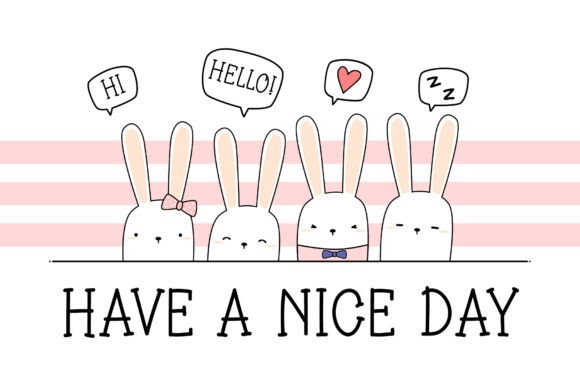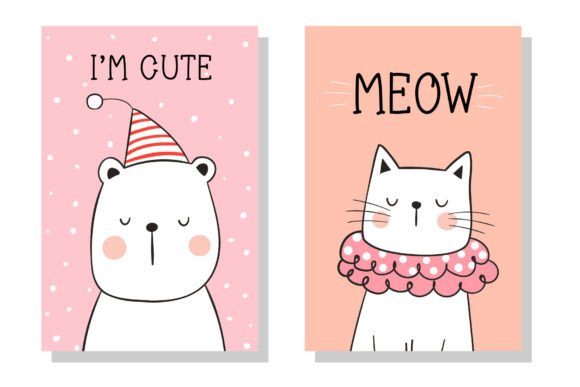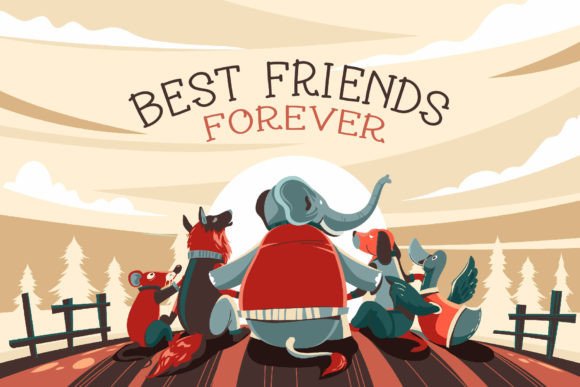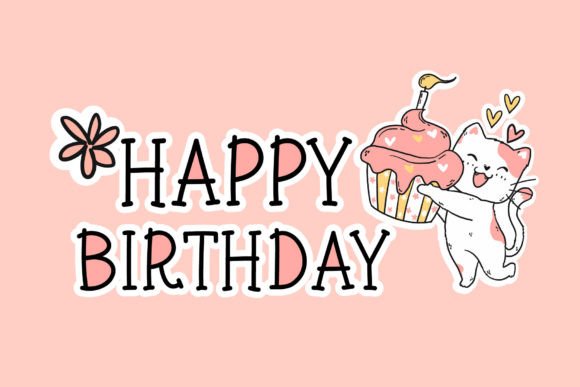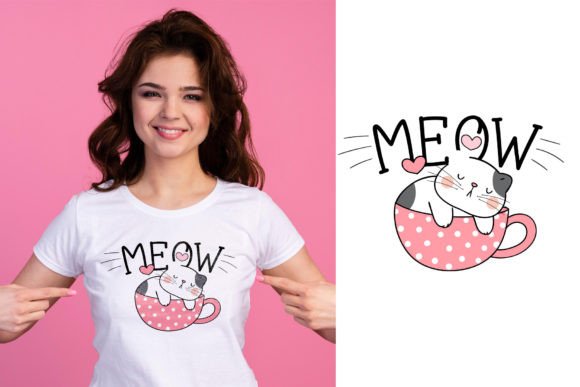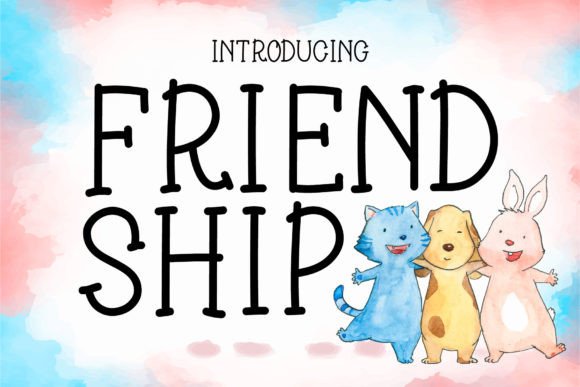
Introducing Friendship Font: The Perfect Handwritten Serif Font for Your Designs
Are you a designer or crafter looking for a font that can add a touch of warmth and personality to your projects? Look no further than Friendship Font, a cute and fun handwritten Serif font that’s perfect for a variety of designs. In this article, we’ll explore the features and benefits of Friendship Font, and show you can use it to create stunning designs for special occasions and everyday projects.
What is Friendship Font?
Friendship Font is a unique and charming handwritten Serif font that’s designed to bring a smile to your face. Its playful and whimsical style makes it ideal for designs that require a personal touch, such as mother’s day cards, weddings, brand names, wall hangings, romantic movie titles, Valentines, or Christmas greetings.
Key Features of Friendship Font
• Cute and Fun Handwritten Style: Friendship Font features a delightful handwritten style that’s perfect for creating designs that are both playful and sophisticated.
• Serif Font: The font’s serif style adds a touch of elegance and sophistication to your designs, making it perfect for a variety of projects.
• Children-Themed Designs: Friendship Font is especially suitable for children-themed designs, particularly when combined with bright colors.
• Versatile: This font can be used for a wide range of projects, from digital designs to print materials.
Use Cases for Friendship Font
Friendship Font is an incredibly versatile font that can be used for various design projects. Here are some ideas to get you started:
• Mother’s Day Cards: Create beautiful and heartfelt mother’s day cards with Friendship Font.
• Weddings: Use Friendship Font to design stunning wedding invitations, decorations, and other wedding-related materials.
• Brand Names: Add a personal touch to your brand name with Friendship Font, making it more memorable and engaging.
• Wall Hangings: Design eye-catching wall hangings with Friendship Font, perfect for nurseries, kids’ rooms, or living rooms.
• Romantic Movie Titles: Create captivating movie titles with Friendship Font, ideal for romantic comedies or dramas.
• Valentines: Design lovely Valentine’s Day cards and gifts with Friendship Font.
• Christmas Greetings: Spread holiday cheer with Friendship Font, perfect for Christmas cards, decorations, and more.
Tips for Using Friendship Font
To get the most out of Friendship Font, here are some tips to keep in mind:
• Combine with Bright Colors: Pair Friendship Font with bright and playful colors to create stunning children-themed designs.
• Experiment with Font Sizes: Play around with different font sizes to create visual interest and hierarchy in your designs.
• Add Decorations: Enhance your designs with decorations, such as flowers, hearts, or other graphics, to match the playful style of Friendship Font.
Author Fox7
Friendship Font is a delightful handwritten Serif font that’s perfect for designers and crafters looking to add a touch of warmth and personality to their projects. With its cute and fun style, versatility, and wide range of use cases, Friendship Font is an excellent addition to any design library. So why wait? Download Friendship Font today and start creating stunning designs for special occasions and everyday projects!